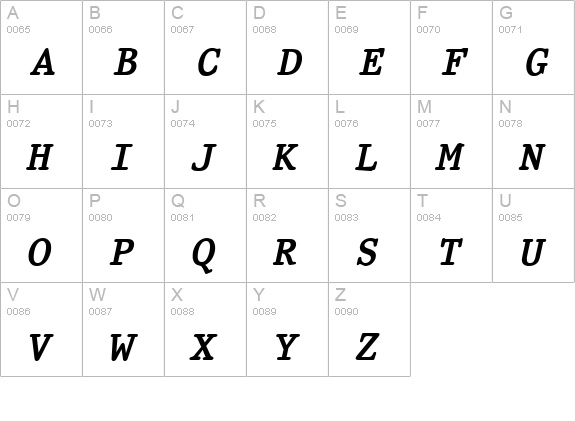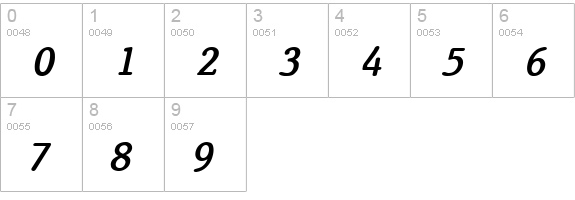
QTPristine Bold Italic Font Details
QTPristine Bold Italic is a strong, high-contrast, italic variant in the QTPristine typeface family \xE2\x80\x94 well suited to headlines, attention-grabbing titles, and strong calls-to-action.
Introducing QTPristine Bold Italic, a font that effortlessly combines elegance and modernity. This beautifully crafted typeface is perfect for those seeking a touch of sophistication in their designs. With its bold and italicized variations, QTPristine Bold Italic offers versatility that can be used in a wide array of creative projects. The clean and refined lines of QTPristine Bold Italic bring a sense of professionalism to any design, making it ideal for logos, branding, headlines, and more. Its unique blend of boldness and curvature adds a touch of character, making your text stand out while maintaining a sense of gracefulness. And the best part? QTPristine Bold Italic is absolutely free! That's right, this stunning font can be freely downloaded at FontsMarket.com. Say goodbye to the hassle of searching for high-quality fonts that won't break the bank. With QTPristine Bold Italic, you can elevate your designs without spending a dime. FontsMarket.com is your go-to destination for a vast collection of free, premium-quality fonts. With their user-friendly interface and extensive font library, finding the perfect typeface for your next project has never been easier. And with QTPristine Bold Italic now available for free, you have the opportunity to add a touch of elegance and style to your designs without any cost. Don't miss out on this incredible opportunity to enhance your creations with QTPristine Bold Italic. Download it today from FontsMarket.com and experience the seamless blend of boldness and sophistication that this font brings to the table. Upgrade your designs, impress your audience, and take your creative endeavors to new heights with QTPristine Bold Italic.